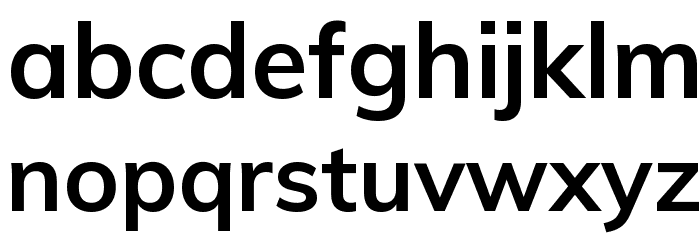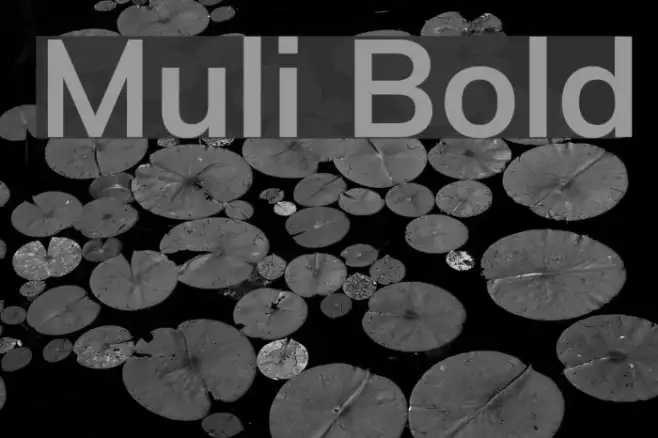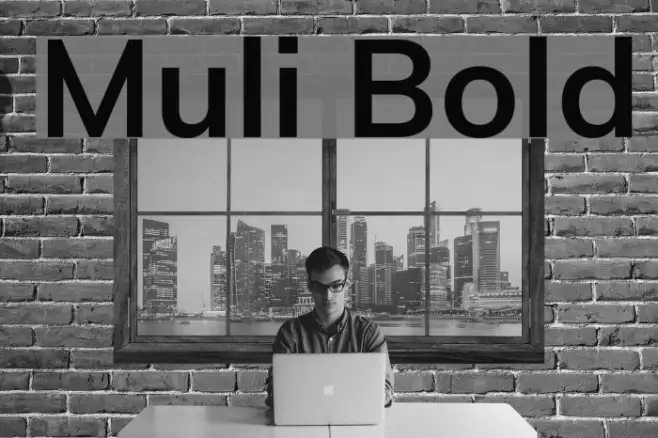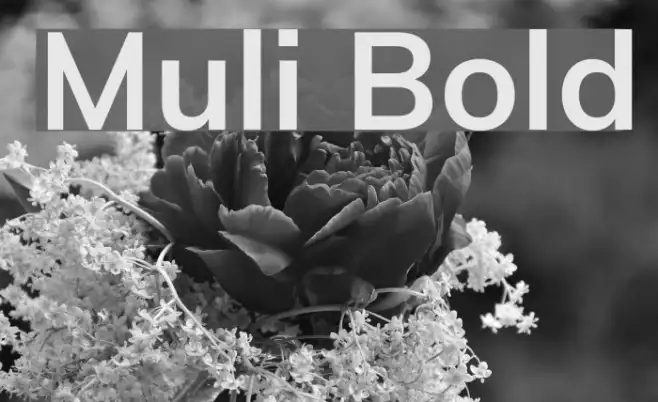
Muli Bold Font
This typeface is a clean and modern sans-serif font characterized by its simplicity and readability. The letters are evenly spaced with a uniform stroke width, providing a balanced and harmonious appearance. The uppercase letters are bold and assertive, while the lowercase letters maintain a friendly and approachable look. The numerals are clear and distinct, making them easily legible. The special characters are well-defined, ensuring versatility in various design contexts. Overall, this font exudes a contemporary and professional vibe, suitable for a wide range of applications.
A modern, clean sans-serif font with uniform stroke width and excellent readability.
- Proposed Projects: Ideal for branding, web design, advertising, and editorial projects where clarity and modernity are essential.